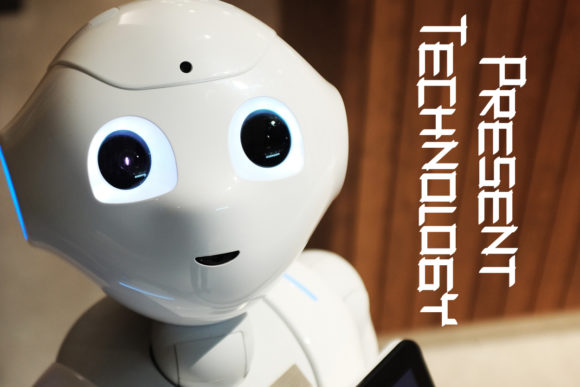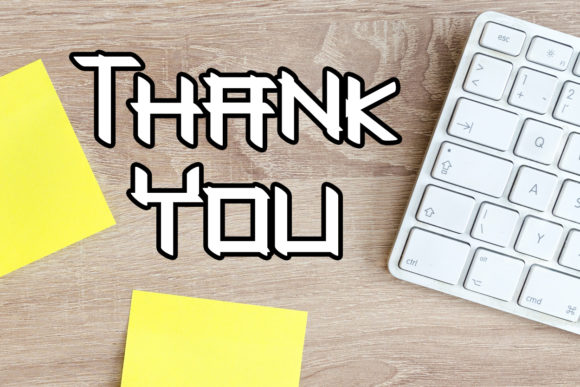
Introduction to Smart Analog Font
Have you ever been stuck in the middle of a design project, struggling to find the perfect font to bring your vision to life? That’s where the Smart Analog Font comes in – a game-changing display font that’s set to revolutionize the world of design. Its futuristic style is sure to elevate your creative projects to new heights.
As a valuable resource for designers, the Smart Analog Font offers a high-quality solution that’s perfect for a wide range of applications. From digital interfaces to print materials, this font is versatile and adaptable, making it an essential addition to any design toolkit.
Key Features of Smart Analog Font
- High-quality, hand-drawn design perfect for creative projects and unique design resources.
- Each character features a transparent background, allowing for easy customization and blending with your design.
- Includes a wide range of characters, including uppercase and lowercase letters, numbers, and punctuation marks, to support your creative project.
- Unique, analog design style that adds a touch of personality and whimsy to any design, making it stand out from traditional fonts.
Honest Review: Smart Analog Font
I recently stumbled upon the Smart Analog Font, a free download that I was excited to dive into. As a designer, I’m always on the lookout for high-quality design resources to elevate my creative projects.
The Smart Analog Font is a beautiful addition to any project. It features a range of analog-inspired characters that look ✨ sleek and modern. The transparent background makes it easy to combine with other design elements, and the font is fully scalable, ensuring that it looks great on any device.
The font comes in a range of styles, from bold and playful to delicate and elegant. This versatility makes it a great choice for a variety of creative projects, from branding and marketing materials to editorial and publishing work.
- High-quality design that looks ✨ sleek and modern
- Transparent background for easy combination with other design elements
- Scalable font that looks great on any device
- Range of styles to suit different creative projects
- May not be suitable for projects that require a more traditional or formal font style ⚠️
- Some characters may not be as detailed or intricate as other fonts ⚠️
Overall, I’m impressed with the Smart Analog Font. It’s a great addition to any design library, and its versatility makes it a great choice for a variety of creative projects.
The Smart Analog Font is a high-quality design resource perfect for creative projects that require a unique, analog feel. This font can be downloaded for free and features a transparent background, making it easy to incorporate into various design platforms.
Tips for Getting the Most Out of the Smart Analog Font
To get the most out of the Smart Analog Font, try combining it with other design elements, such as illustrations and graphics, to create a unique and eye-catching design. Experiment with different font sizes, styles, and colors to find the perfect look for your project.
The Smart Analog Font is perfect for creative projects such as:
– Branding and logos
– Advertising and marketing materials
– Editorial and publishing designs
– Social media graphics and posts